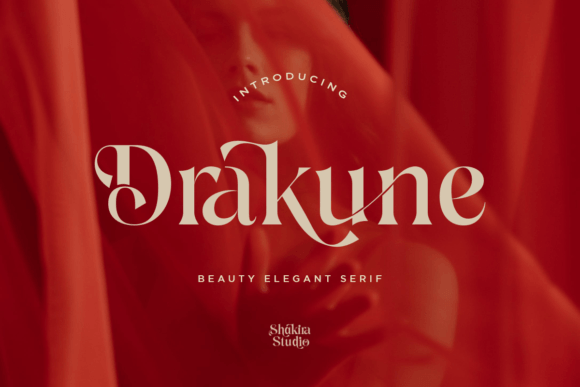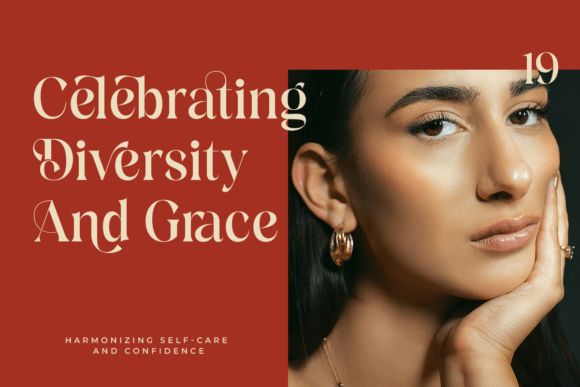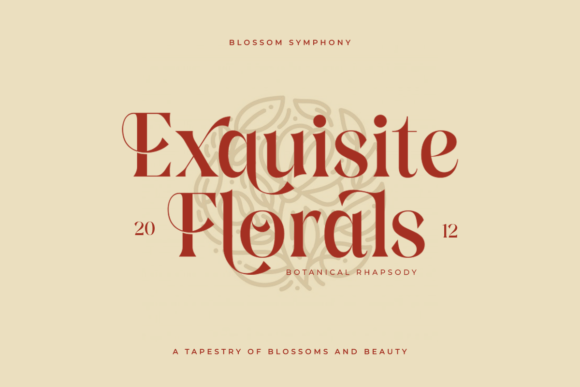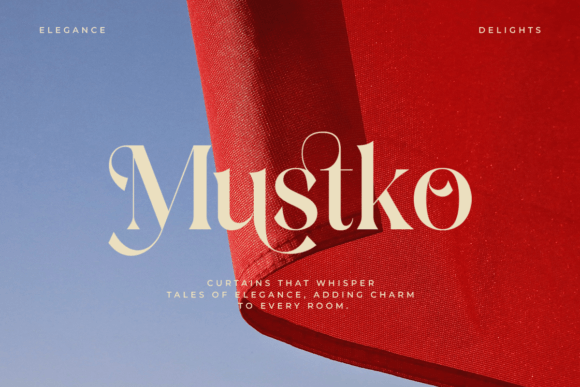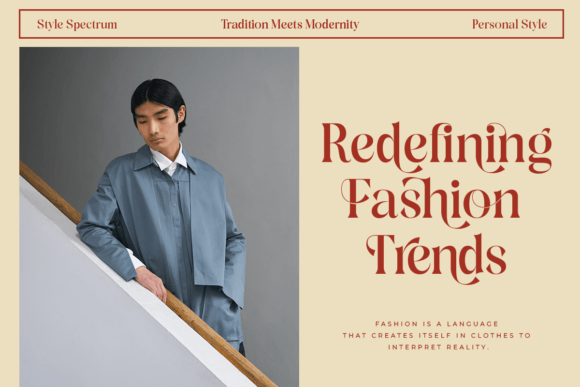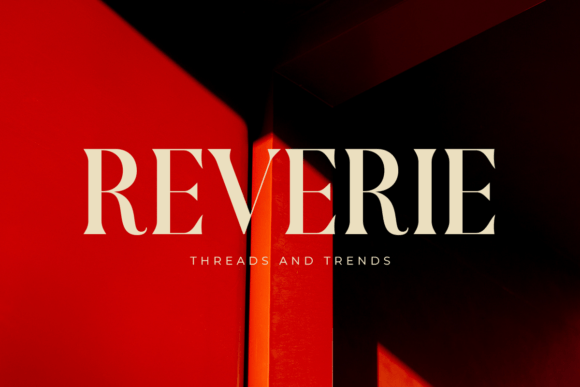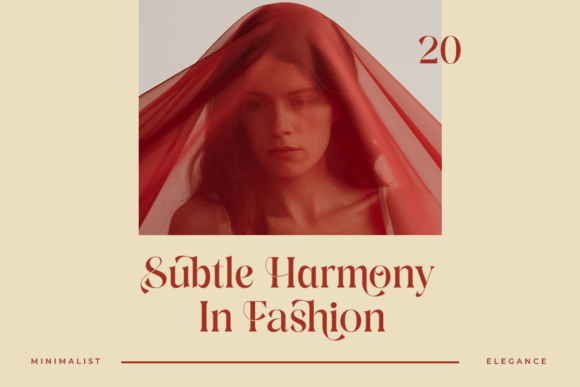
Drakune Font
Introducing Drakune a font that epitomizes the essence of Beauty Elegant Serif. This font, meticulously crafted, offers a perfect blend of timeless beauty and contemporary sophistication. Drakune transforms your designs with its graceful serifs and intricate details, providing a touch of refined elegance that is currently in high demand. Explore the versatility of Drakune through its diverse alternates and ligatures, each contributing to a stylish and distinctive typographic experience. Elevate your creative projects with the allure of Drakune, setting a new standard for Beauty Elegant Serif fonts in the current design landscape.